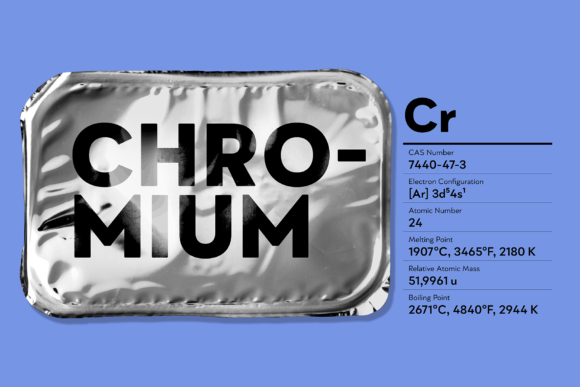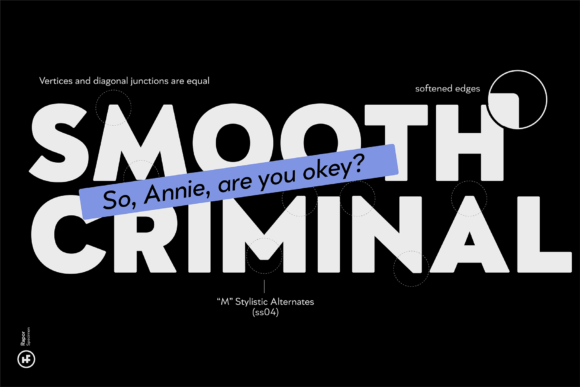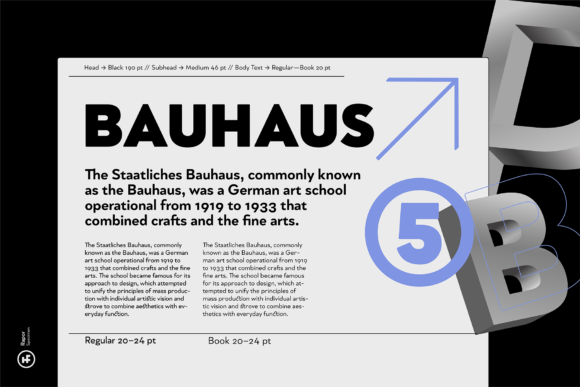
Introduction to Rapor Font
Do you remember the moment when you finally nailed that perfect design for your client’s logo, and it felt like all the stars aligned? That’s what it’s like to work with a high-quality font that elevates your creative project to the next level. Enter Rapor Font, a modern, simple, and cool display font that’s about to become your new go-to design resource.
With Rapor Font, you can instantly give your creations a professional edge, making them stand out from the crowd. Whether you’re working on a branding project, a graphic novel, or even a social media campaign, this font is sure to bring a touch of sophistication and visual appeal to your design. And the best part? It’s available for a free download, making it an invaluable asset for designers of all levels.
So, what makes Rapor Font so special? In this article, we’ll dive into the details of this fantastic font and explore why it’s a must-have for any designer looking to take their creative project to new heights.
Key Features of Rapor Font
- High-quality, free download design resource ideal for creative projects
- Unique, modern font style with transparent background for versatile usage
- Supports a wide range of languages and characters for global compatibility
- Suitable for various design applications, including digital and print media
Honest Review: Rapor Font
As a designer, I’m always on the lookout for high-quality design resources to elevate my creative projects. The Rapor Font caught my attention with its sleek and modern aesthetic, making it a great addition to any design arsenal.
- ✨ Clean and minimalist design: The Rapor Font’s design is easy to read and works well in a variety of contexts.
- ✨ High-quality glyphs: The font features a wide range of glyphs, including ligatures and alternates, making it perfect for designers who need to create complex typography.
- ⚠️ Limited font weights: The Rapor Font is only available in a few font weights, which may limit its versatility in certain design projects.
- ⚠️ No transparent background: Unlike some other fonts, the Rapor Font doesn’t offer a transparent background, which may make it less suitable for designs that require a subtle, see-through look.
Overall, I’m impressed with the Rapor Font’s design and versatility. While it may have some limitations, it’s still a valuable resource for designers who want to add a touch of modernity to their creative projects.
Tips for Getting the Most Out of Rapor Font
To maximize the use of Rapor Font, experiment with different font sizes and combinations to achieve a visually appealing design. Additionally, consider using a transparent background to create a clean and modern look.
Rapor Font is versatile and can be used for various design projects, including logos, brochures, and social media graphics. Its unique style makes it an excellent choice for creative professionals and hobbyists alike.